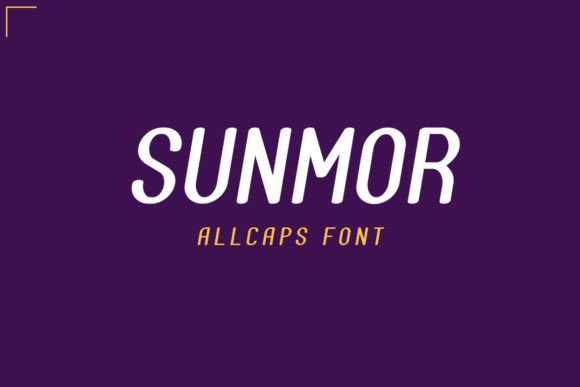
Behold Sunmor, the modern, clean sans serif font crafted to elevate your designs. Its crisp lines and captivating curves dance off the page, creating an enduring impression. Sunmor is not merely a font; it's an artistic expression, a visual symphony that harmonizes with your creative vision. Unleash its boundless potential and watch your words transform into captivating headlines, enthralling book titles, and striking posters that leap off the screen.
Journey through a world of endless possibilities with Sunmor. Its versatile nature makes it a perfect fit for a myriad of projects, from the grace of classic wedding invitations to the vibrancy of social media posts. Picture your designs adorned with Sunmor's refined charm, radiating elegance and sophistication. Prepare to be swept away by its timeless beauty, as it weaves its magic across any medium.
Dive into the world of book publishing with Sunmor as your trusted companion. It's the ultimate font for authors and publishers seeking a blend of readability and visual allure. Bask in the glory of your exquisitely crafted novels, where Sunmor's clean lines dance between the pages, inviting readers to delve deeper into your captivating narratives. Let your words take center stage, enhanced by the subtle grace of Sunmor, the font that transforms ordinary text into a literary masterpiece.
With Sunmor, your designs will transcend the mundane and embrace the extraordinary. Elevate your creativity to new heights, leaving an indelible mark on the hearts and minds of your audience. Embrace Sunmor, the font that ignites your imagination and empowers you to weave tales of visual splendor.